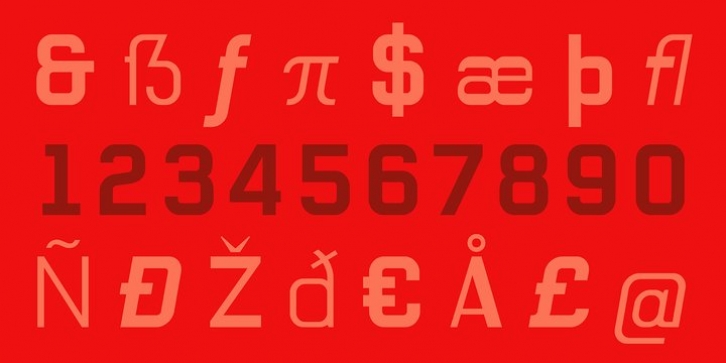
Northeast Railway Font Family was designed by Fabio Ares, and and published by Fabio Ares. Northeast Railway contains 7 styles and family package options.
Northeast Railway is a product of argentine typographic archeology project called "TipografÃa Histórica Ferroviaria" (Fabio Ares & Octavio Osores, since 2012). Is about the signboards of the stations of the line of the Argentine North Eastern Railway Company Limited (1987-1948).
The letter of this signboards can be described as display type, with elementary geometric shapes and without line modulation.
The principal font of the resultant family is the bold. The family is completed with complementary fonts of different styles. The proceeds from the sale of the fonts will be used to finance the project.